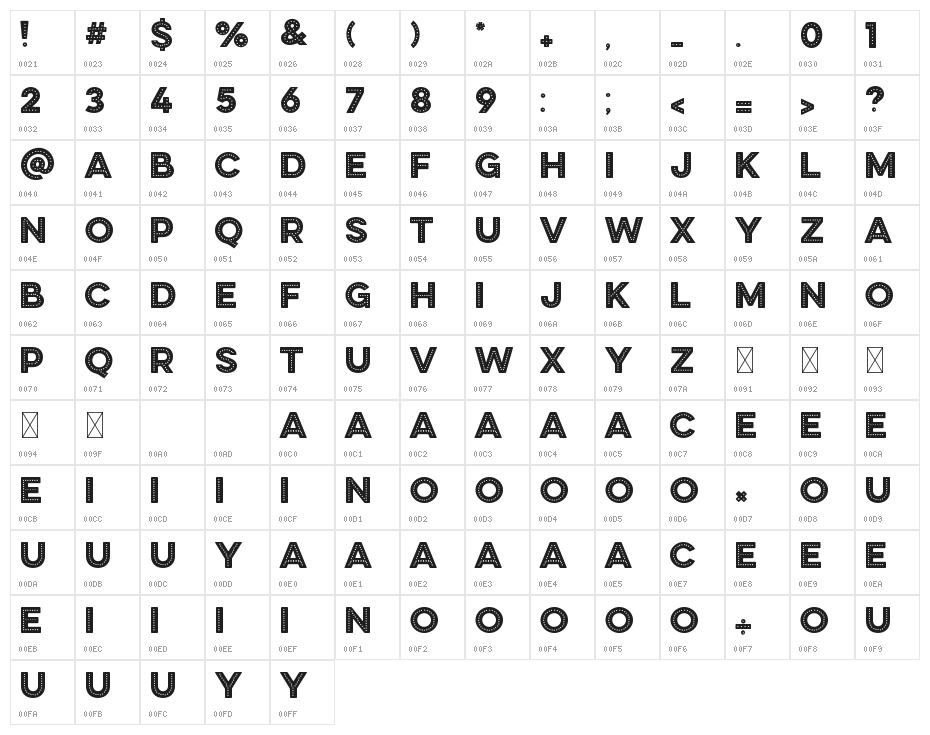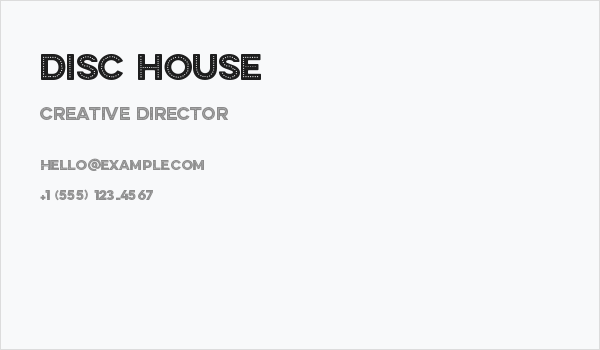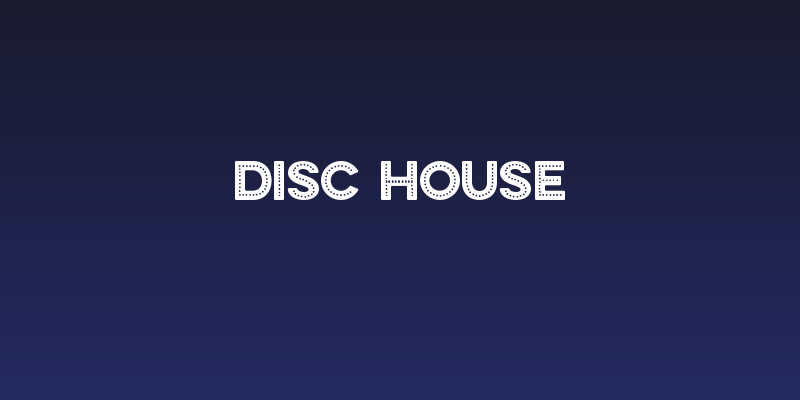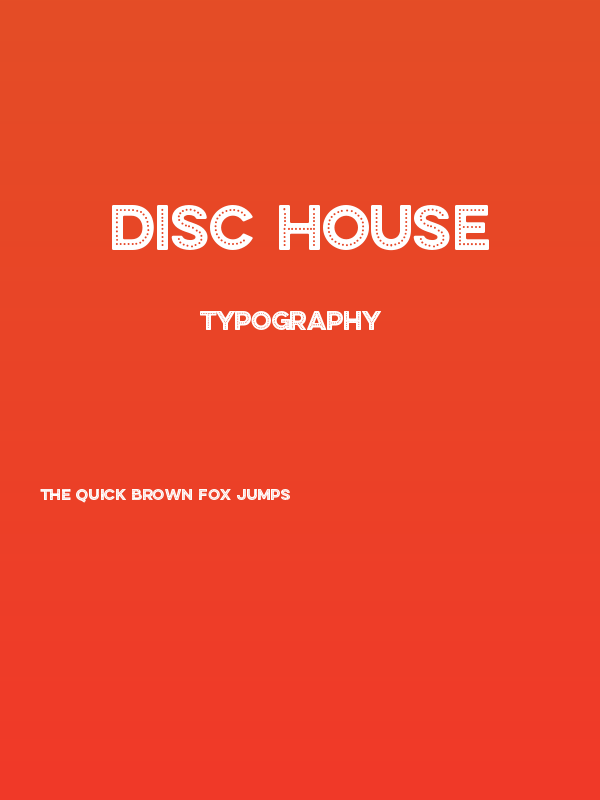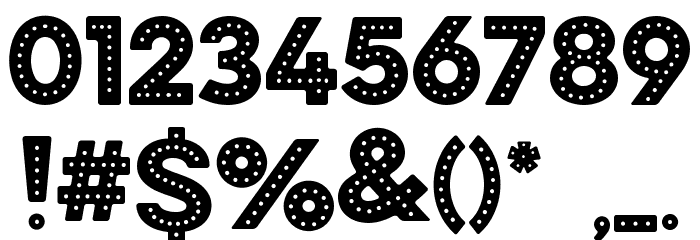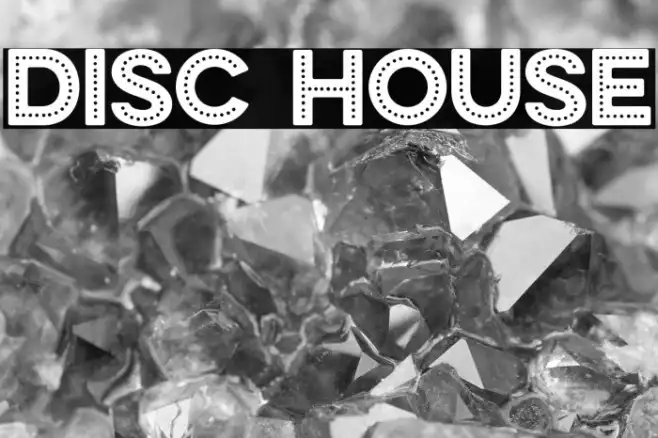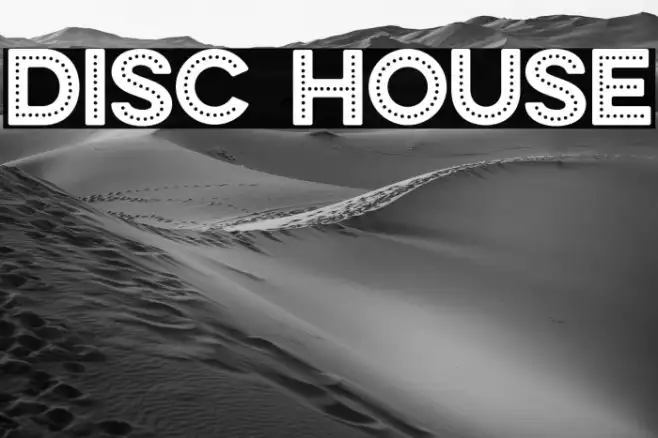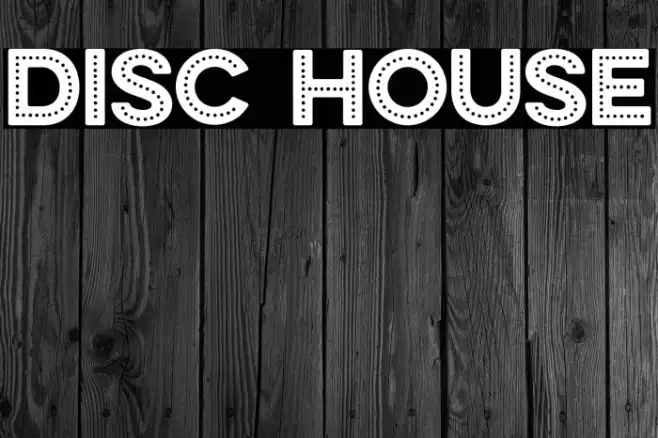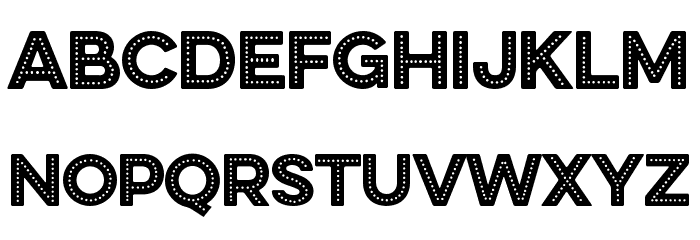
DISC HOUSE Font
DISC HOUSE Description
This font features a bold, decorative style with a unique dotted pattern inside each character, reminiscent of marquee lights or retro signage. The uppercase letters, numbers, and special characters are all designed with this distinct dotted effect, creating a playful and eye-catching appearance. The font maintains a consistent weight and width across all characters, ensuring a uniform look. Its bold strokes and decorative elements make it ideal for projects that require a standout display font.
| Proposed Projects | Ideal for use in posters, signage, event invitations, or any project that requires a vintage or theatrical flair. |